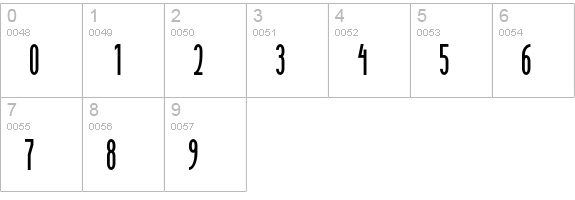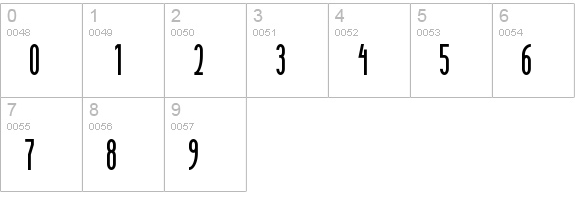
PfeifferTall-Regular Font Details
PfeifferTall-Regular is the standard, neutral variant in the PfeifferTall typeface family \xE2\x80\x94 well suited to general body text, paragraphs, and standard typographic work.
PfeifferTall-Regular font is a stunning display typeface that effortlessly combines elegance with a touch of modernity. With its tall and slender letterforms, this font exudes a sense of sophistication and grace. The clean lines and precise curves of PfeifferTall-Regular make it perfect for a variety of design projects, from elegant invitations to stylish logos and branding materials. The font's generous spacing ensures optimal legibility even at smaller sizes, making it a versatile choice for both print and digital applications. What sets PfeifferTall-Regular font apart is its accessibility. It is freely available to download at FontsMarket.com, a trusted source for high-quality fonts. This means that designers and creatives can easily incorporate this stunning typeface into their projects without any limitations or restrictions. PfeifferTall-Regular font is a true gem in the world of typography, offering both beauty and functionality. Its timeless appeal and flexibility make it a must-have for any design toolbox. So, why wait? Download PfeifferTall-Regular today and elevate your designs to new heights.